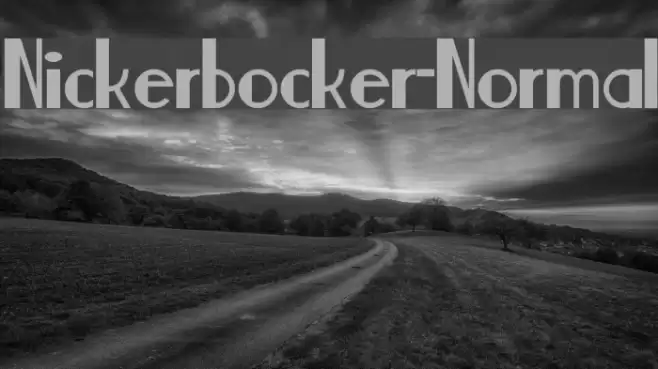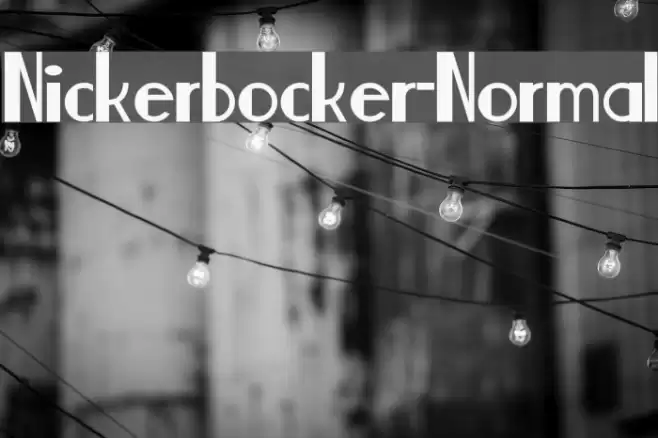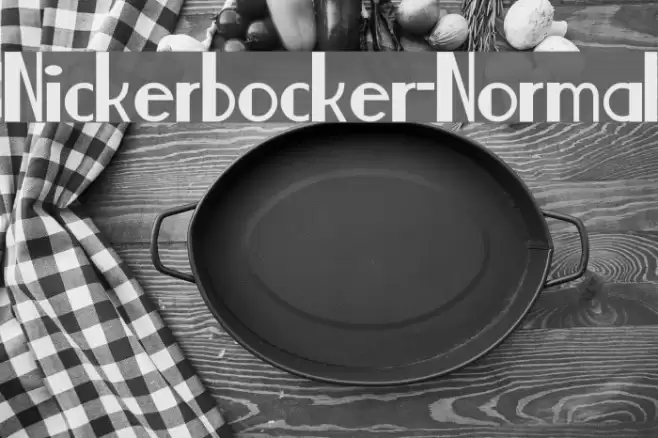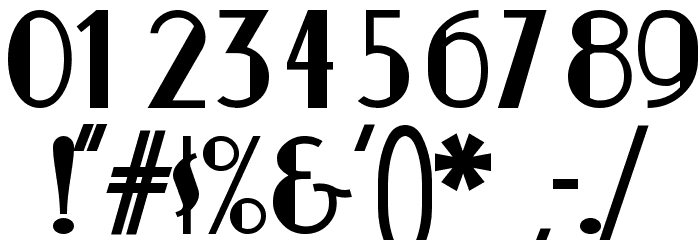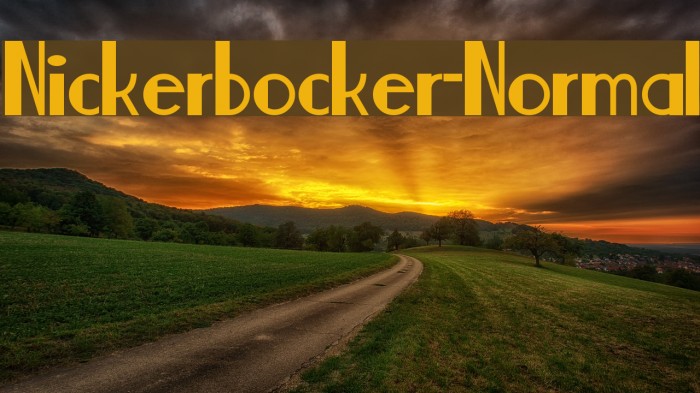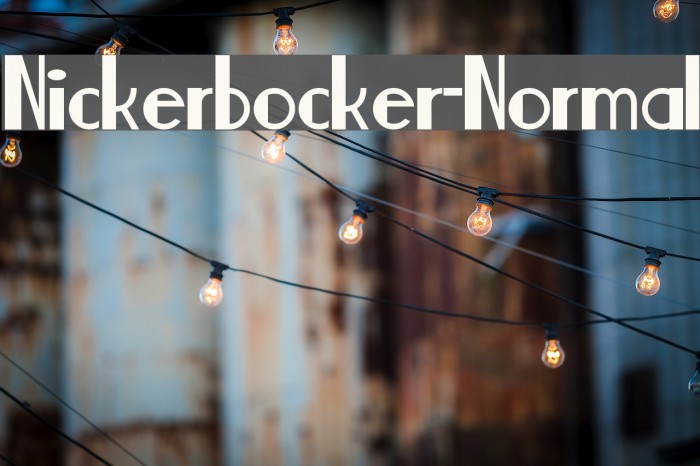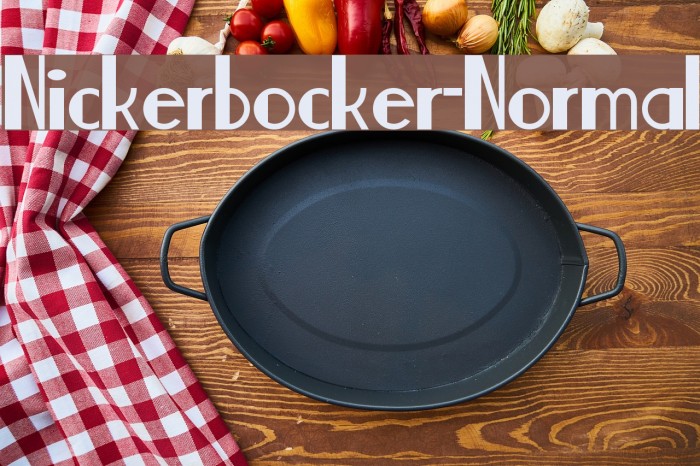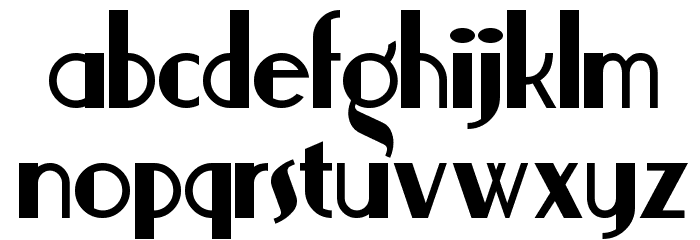
Nickerbocker-Normal Font
Nickerbocker-Normal Description
This font features a unique and bold design with a distinct Art Deco influence. The uppercase letters are characterized by strong geometric shapes and sharp angles, creating a striking visual impact. The lowercase letters maintain a consistent style, with smooth curves and a slightly condensed form. The numerals are bold and align well with the overall aesthetic, while the special characters add a touch of elegance with their intricate details. The font's high contrast between thick and thin strokes enhances its decorative appeal, making it suitable for eye-catching designs.
A bold, Art Deco-inspired font with geometric shapes and high contrast from Decorative fonts.
- Proposed Projects: Ideal for branding, poster design, and any project requiring a vintage or retro aesthetic.
- Overall Style: Vintage